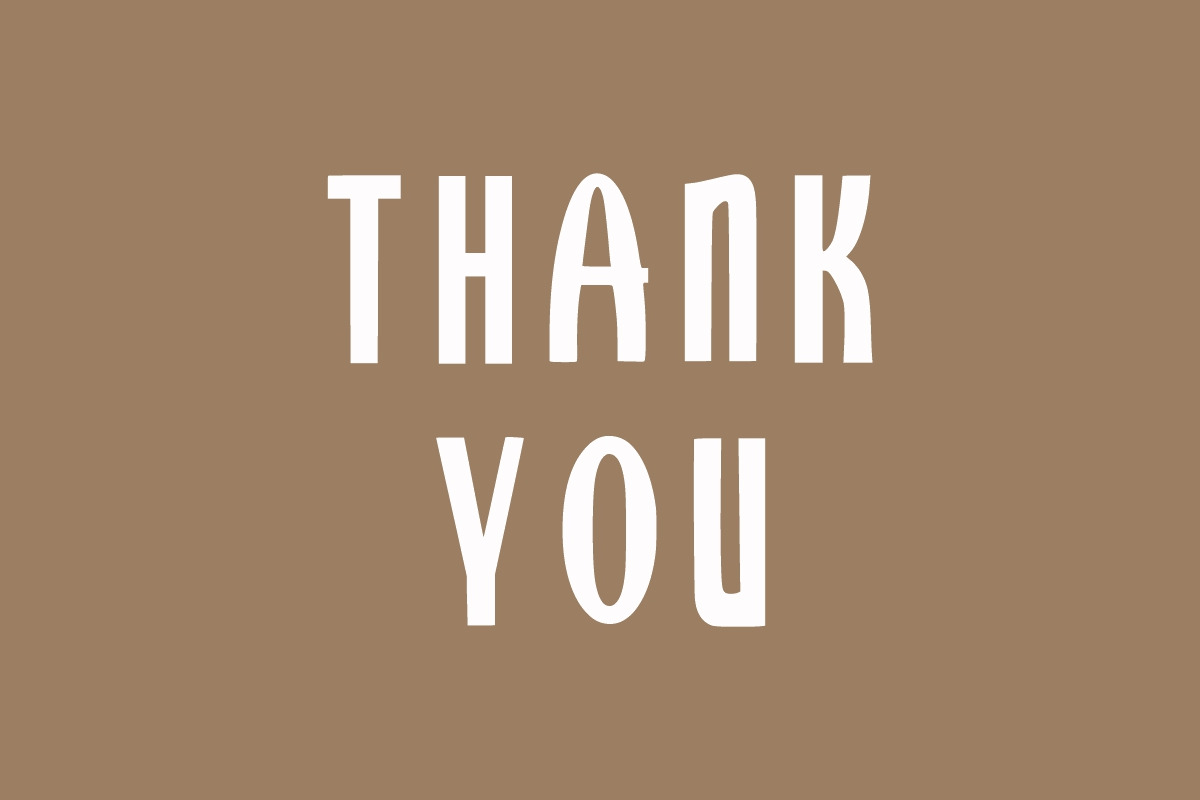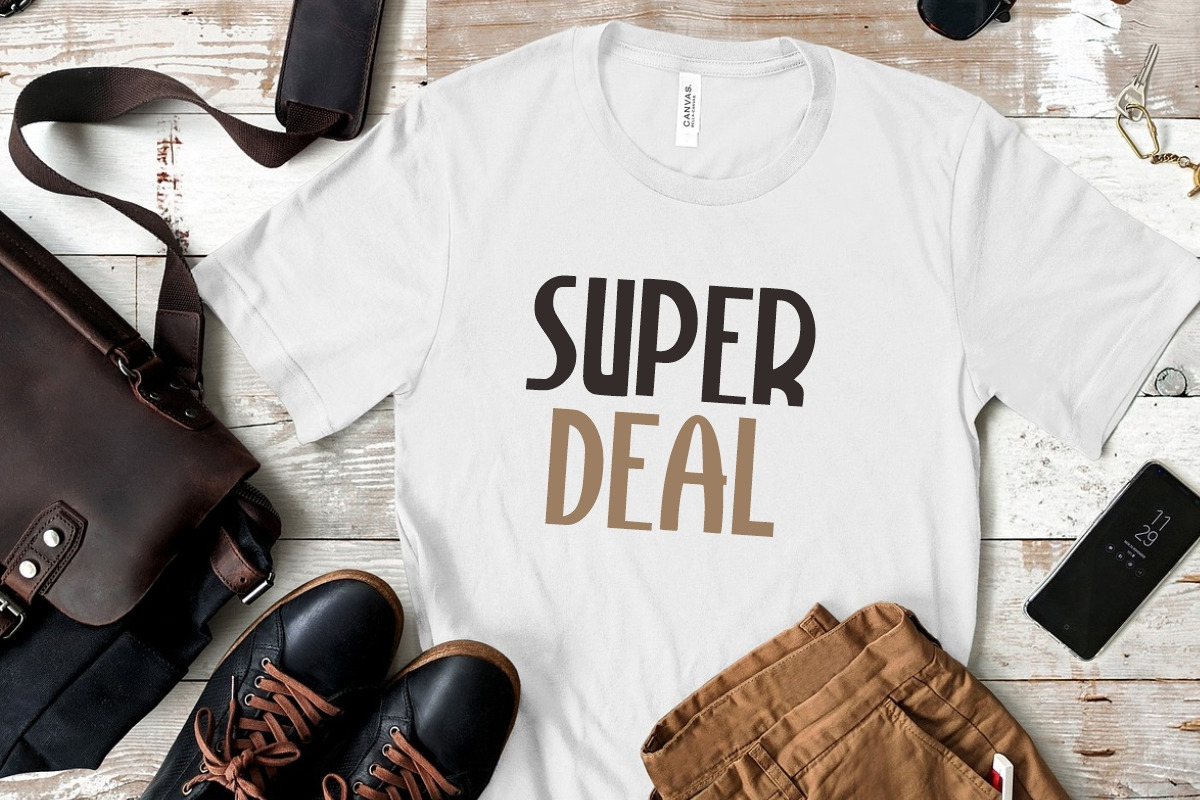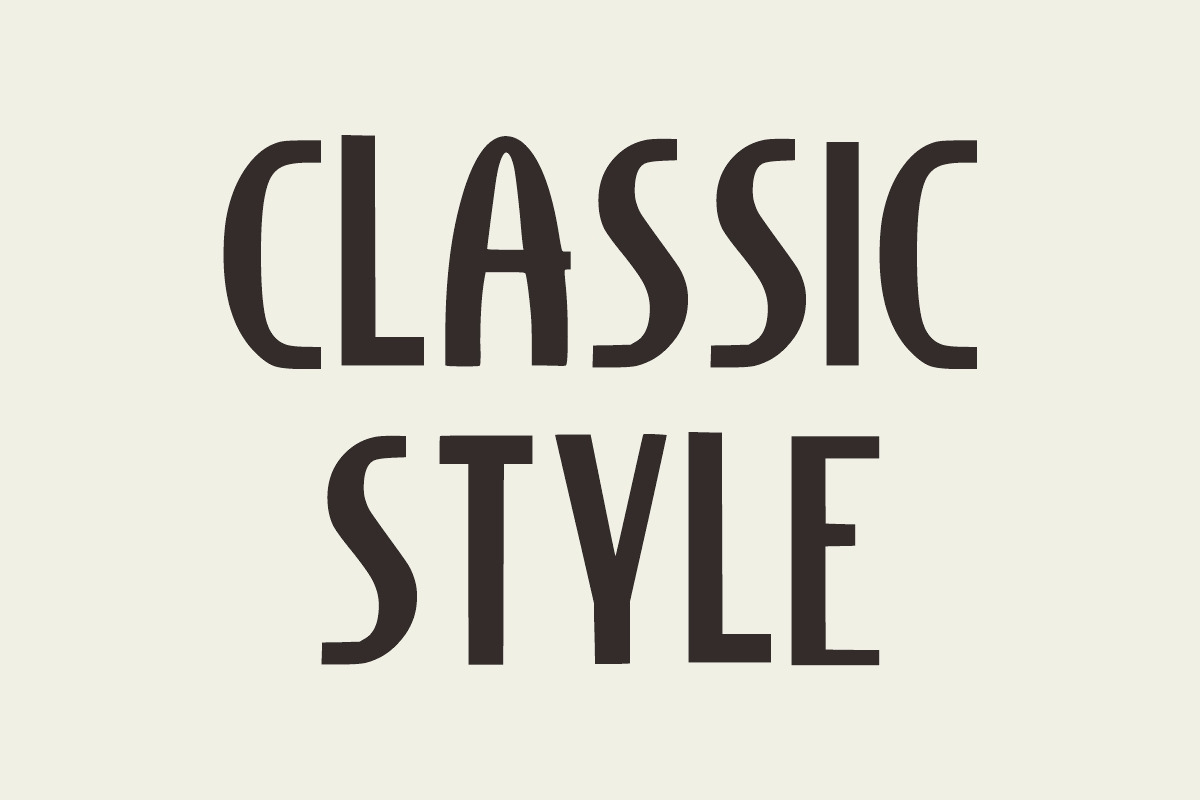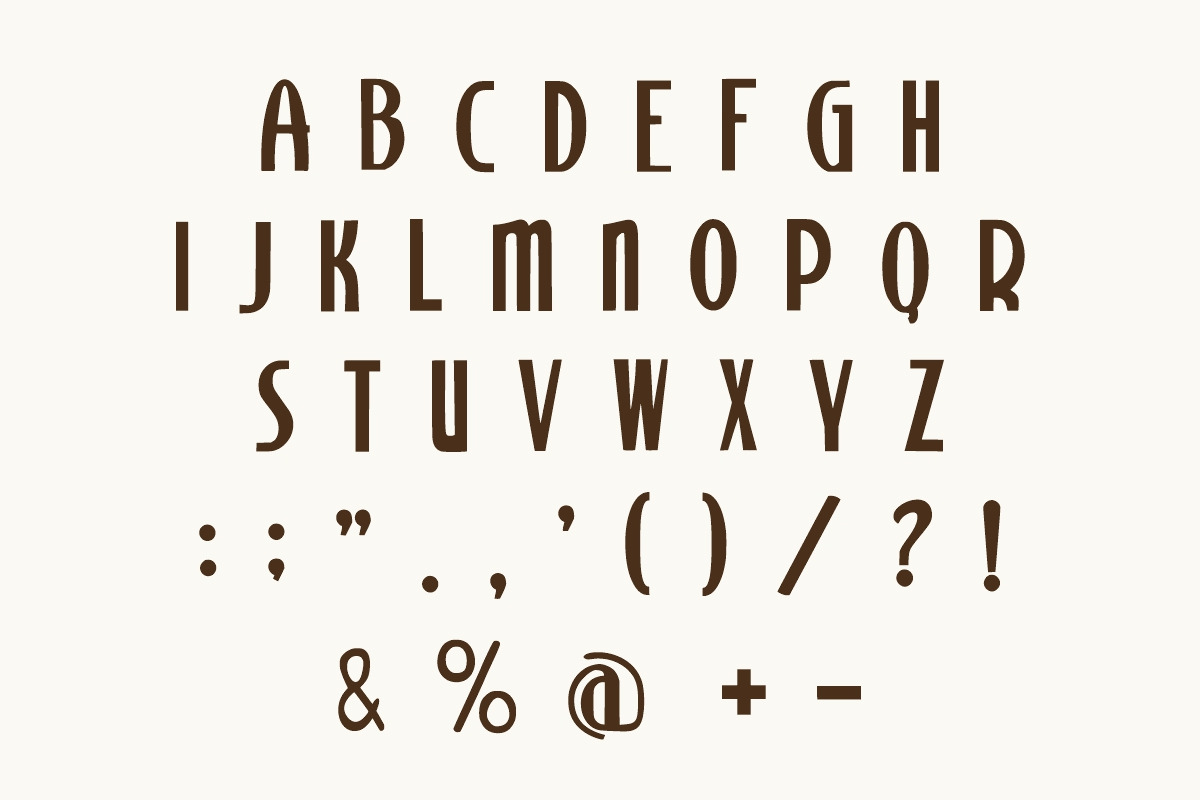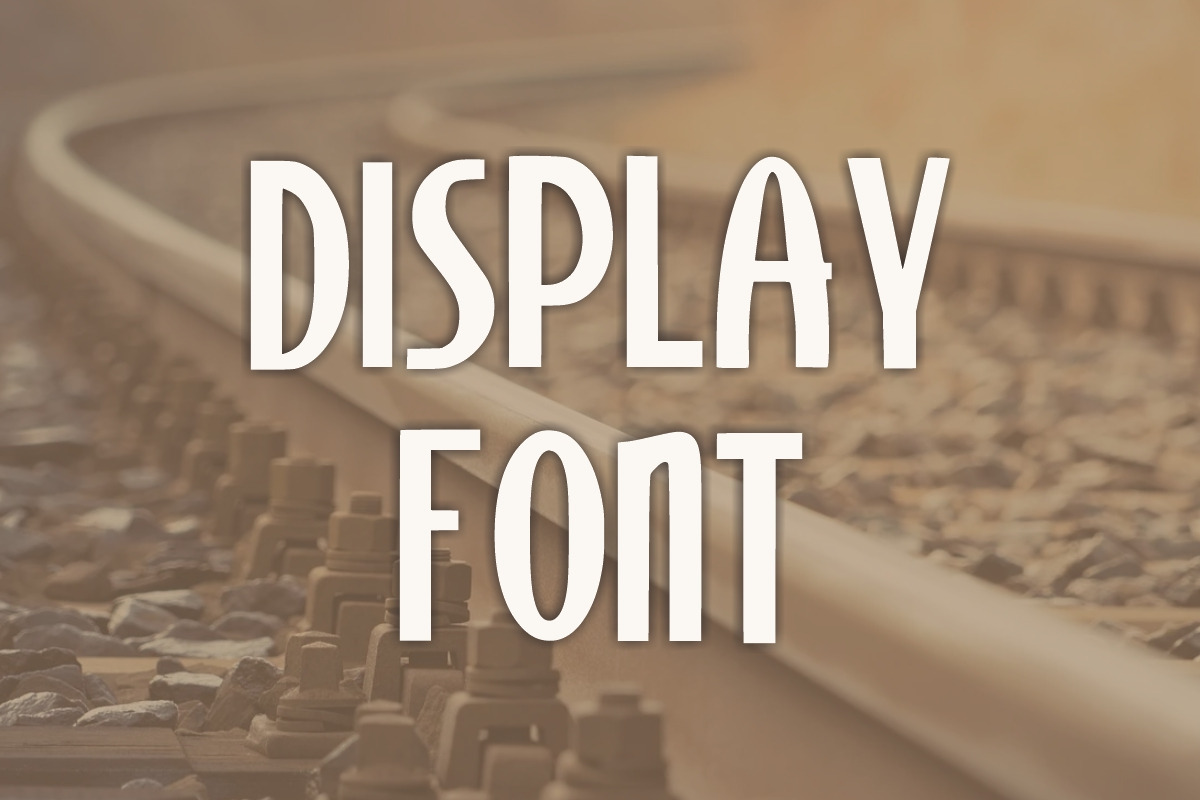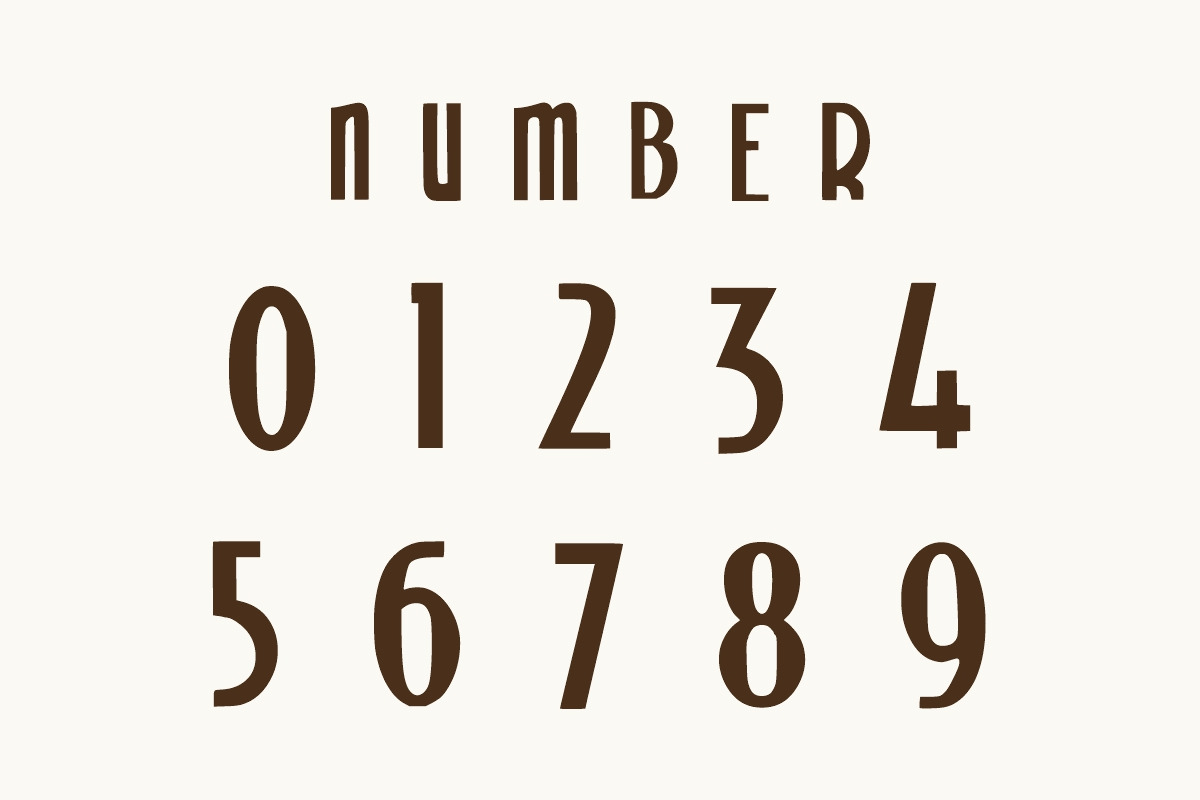
Peace Butter
Peace Butter is a vintage, simple, and thin display font. Its informal style and casual vibe will make this font a go-to choice for each of your creations that require a relaxed touch. It is suitable for any product packaging, invitation, quote, t-shirt, label, poster, logo that you wish to develop!